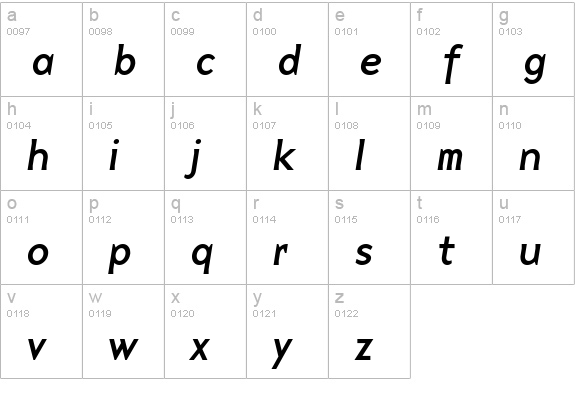
BaseNine Italic is a distinctive, italic variant in the BaseNine typeface family \xE2\x80\x94 well suited to design and typography projects.
BaseNine Italic is a sleek and stylish font that adds a touch of elegance to any design project. With its subtle curves and unique letterforms, this font exudes sophistication and class. Perfect for headings, quotes, and logos, BaseNine Italic is sure to make your text stand out. And the best part? BaseNine Italic is completely free to download at FontsMarket.com. So go ahead and elevate your designs with this beautiful font today!